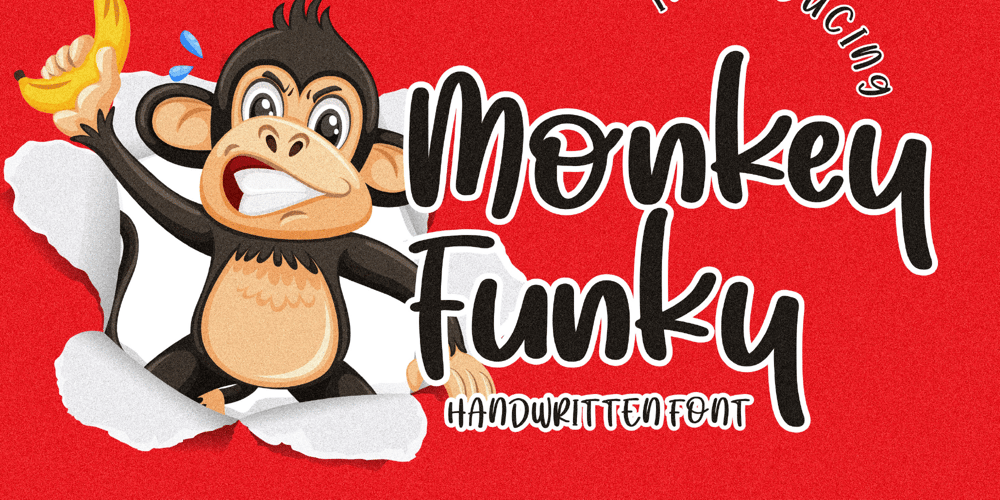
Monkey Funky Font Family was designed by Dimas Alif Maulana and published by Integritype. Monkey Funky contains 2 styles and family package options. Monkey Funky is a cool, refreshing and neat looking handwritten font. No matter the topic, this font will be an incredible asset to your fonts’ library, as it has the potential to elevate any creation.